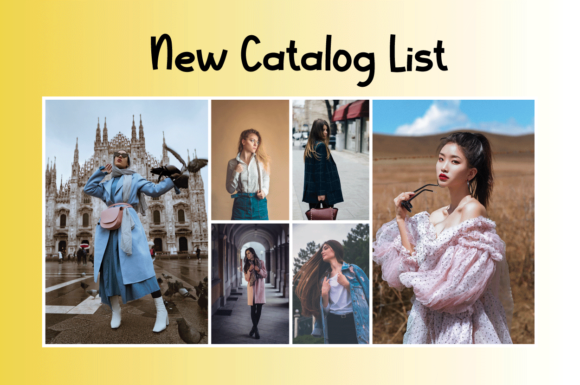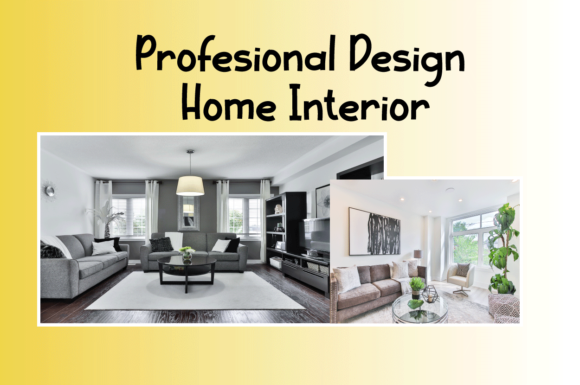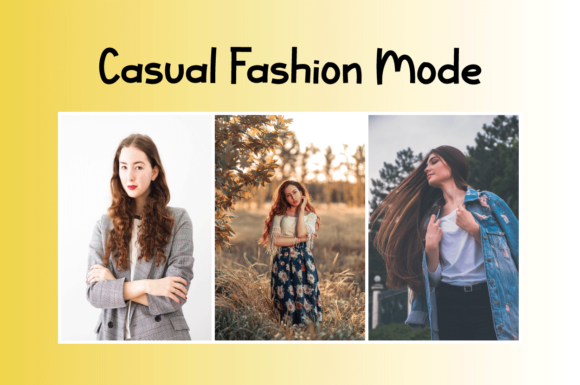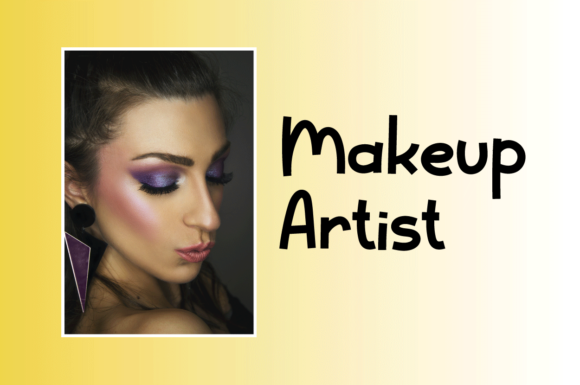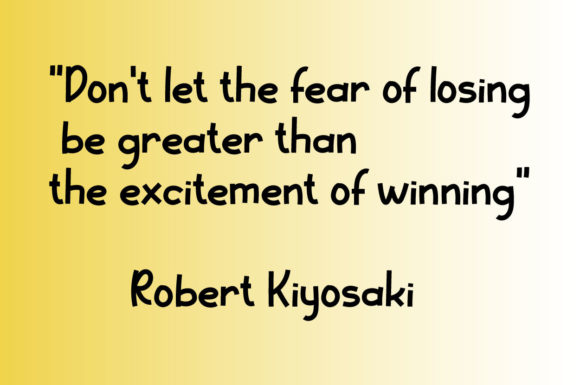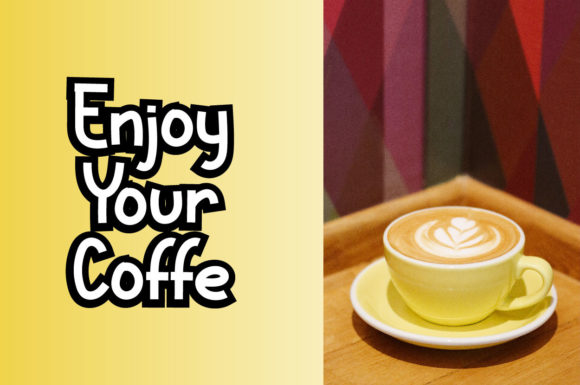
Hay Little Brachios Font: The Perfect Choice for Kids’ Projects
Are you looking for a font that embodies playfulness and authenticity for your next children’s activity or school project? Look no further than Hay Little Brachios Font! This incredibly cute and friendly display font is sure to capture the hearts of kids and adults alike.
What Makes Hay Little Brachios Font So Special?
Hay Little Brachios Font is a unique and charming font that is specifically designed to bring a sense of fun and playfulness to any project. Its friendly and approachable style makes it perfect for children’s activities, school projects, and even craft projects. The font’s playful and authentic vibe is sure to engage kids and inspire their creativity.
Key Features of Hay Little Brachios Font
- Cute and Friendly Design: Hay Little Brachios Font features a delightful design that is sure to capture the hearts of kids and adults alike.
- Playful and Authentic Style: The font’s playful and authentic style makes it perfect for children’s activities, school projects, and craft projects.
- Display Font: Hay Little Brachios Font is a display font, making it perfect for headings, titles, and other display text.
- Easy to Read: Despite its playful design, Hay Little Brachios Font is easy to read, making it perfect for kids’ projects and activities.
Uses for Hay Little Brachios Font
Hay Little Brachios Font is a versatile font that can be used for a wide range of projects, including:
- Children’s Activities: Hay Little Brachios Font is perfect for creating fun and engaging children’s activities, such as coloring pages, worksheets, and activity sheets.
- School Projects: The font is also great for school projects, including posters, presentations, and reports.
- Craft Projects: Hay Little Brachios Font can be used for craft projects, such as making cards, gift tags, and other paper crafts.
- Digital Projects: The font can also be used for digital projects, such as creating e-books, videos, and animations.
Tips for Using Hay Little Brachios Font
Here are some tips for using Hay Little Brachios Font:
- Use it for Headings and Titles: Hay Little Brachios Font is perfect for headings and titles, as it adds a playful and fun touch to any project.
- Pair it with Other Fonts: The font can be paired with other fonts to create a unique and interesting look.
- Experiment with Colors: Hay Little Brachios Font looks great in a variety of colors, so don’t be afraid to experiment and find the perfect color for your project.
Hay Little Brachios Font is a unique and charming font that is perfect for kids’ projects and activities. Its playful and authentic style makes it a great choice for children’s activities, school projects, and craft projects. With its cute and friendly design, Hay Little Brachios Font is sure to capture the hearts of kids and adults alike.
In conclusion, Hay Little Brachios Font is a great choice for anyone looking for a fun and playful font for their next project. Its unique design and friendly style make it perfect for kids’ projects and activities, and it’s sure to bring a smile to the faces of kids and adults alike.